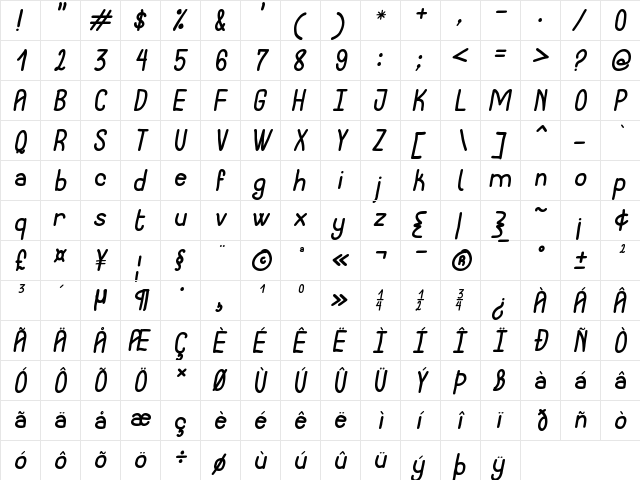
Notarized Openly Script Oblique Regular
Design Context for Notarized Openly Script Oblique Typeface
Notarized Openly Script Oblique flows with the natural rhythm of handwritten lettering, making it ideal for designs that call for warmth and personal expression.
Font Pairing: Combine Notarized Openly Script Oblique with a simple geometric sans for maximum contrast — the tension between flowing curves and clean structure is a classic typographic pairing.
Pro Tip: Use Notarized Openly Script Oblique for short runs of text — names, titles, or taglines. Extended body copy in script faces tires the eye quickly.